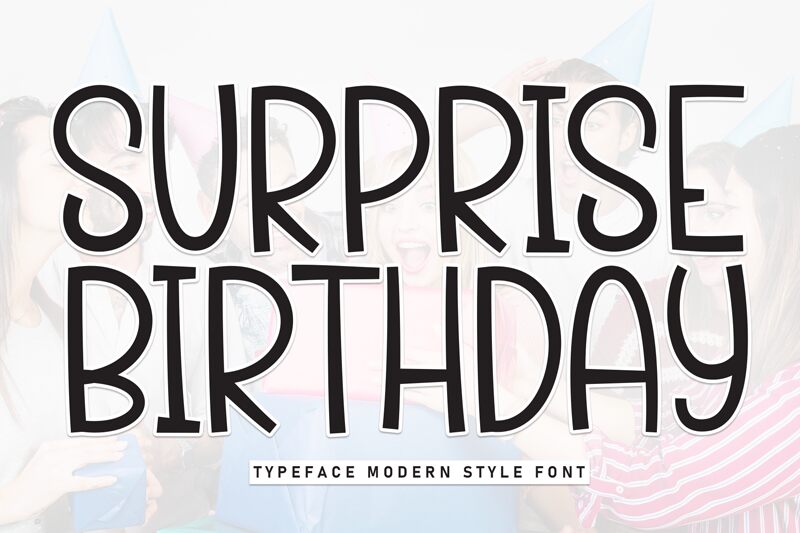
Surprise Birthday font is a modern and quirky free font by Andi Moz, designed specifically to bring an inviting and lively energy to your projects. Its informal and youthful style makes it a fitting option for many contemporary applications, such as branding for children’s products and fun packaging.
It has a casual but unique feel, suitable for both printed and online projects. Despite its hasty, handwritten feel, this font is perfectly readable and pleasing to the eye.
Informal yet energetic, Surprise Birthday can be used mostly for fun branding, greeting cards, special merch, and surprise gifts. It also offers many possibilities in children’s toys and children-focused designs, such as books, posters, and t-shirts.
This is a sweet and friendly handwritten display font. Cute and fun, this free font is perfect for writing wedding invitations, cards, or any design that requires a playful touch!